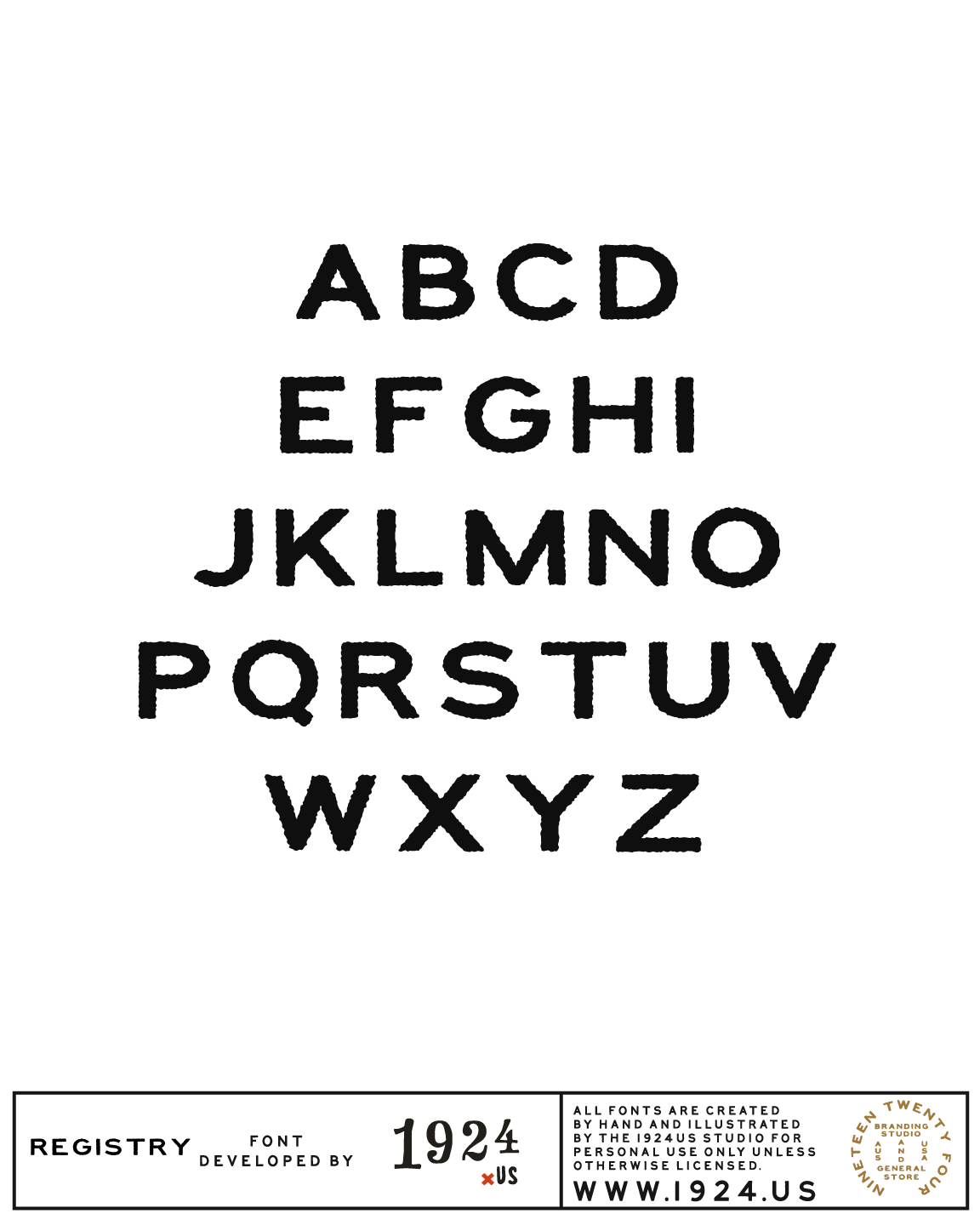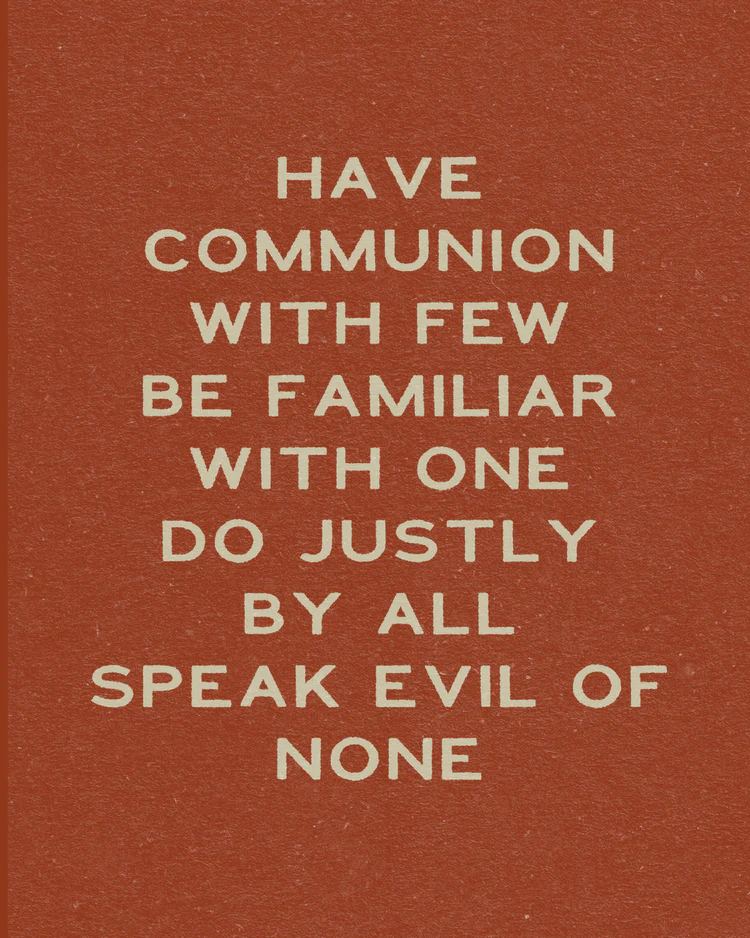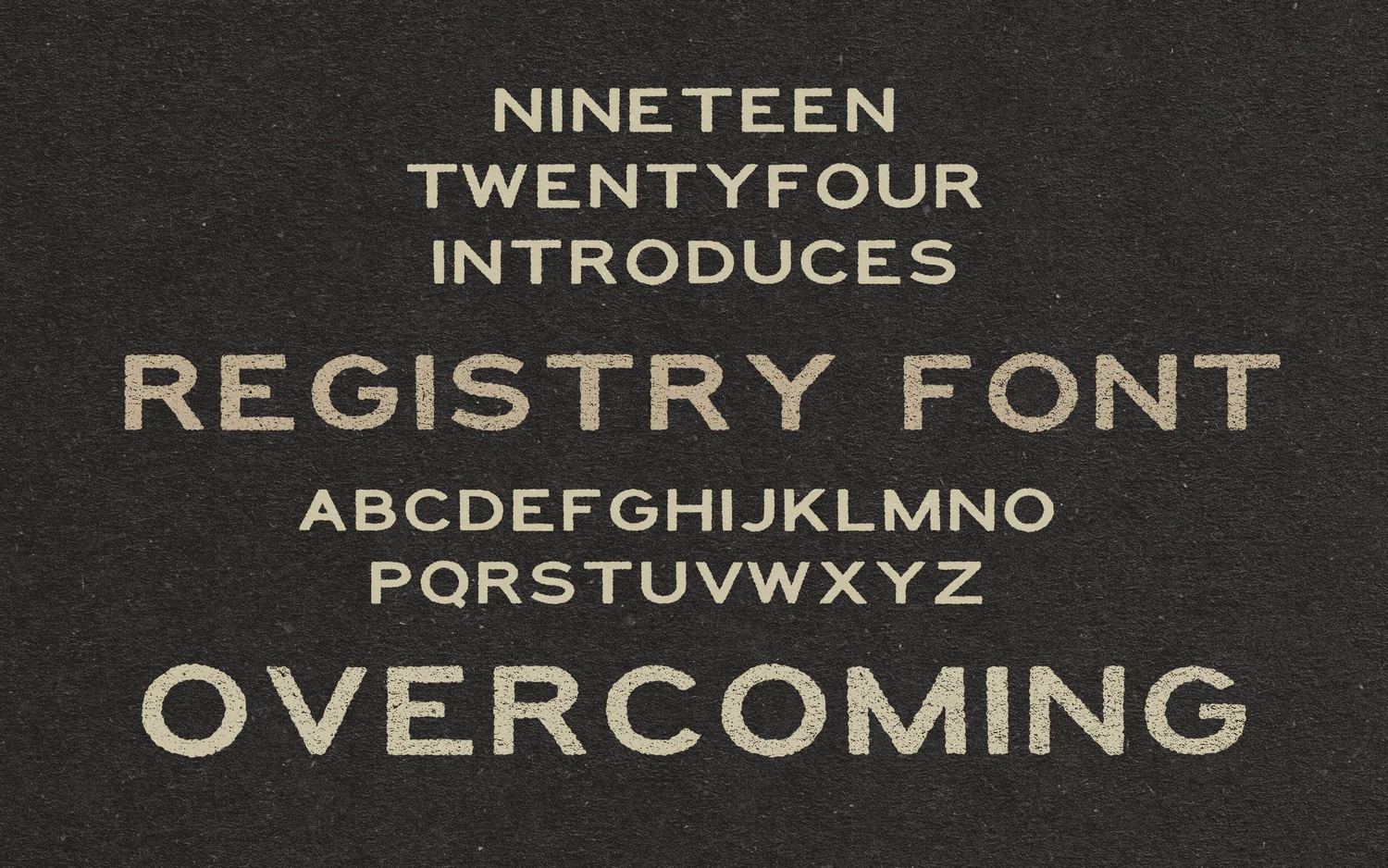
Registry Font by 1924us
Our first commercially useable font, REGISTRY was developed as a WW2 inspired headline font that includes one case and no numbers, great for product display, branding and other projects. Should you use this on any commercial projects we just ask that you send us some pictures of what you make!! Thank you so much! Designed in House by 1924us. Commercial Licensing included :)